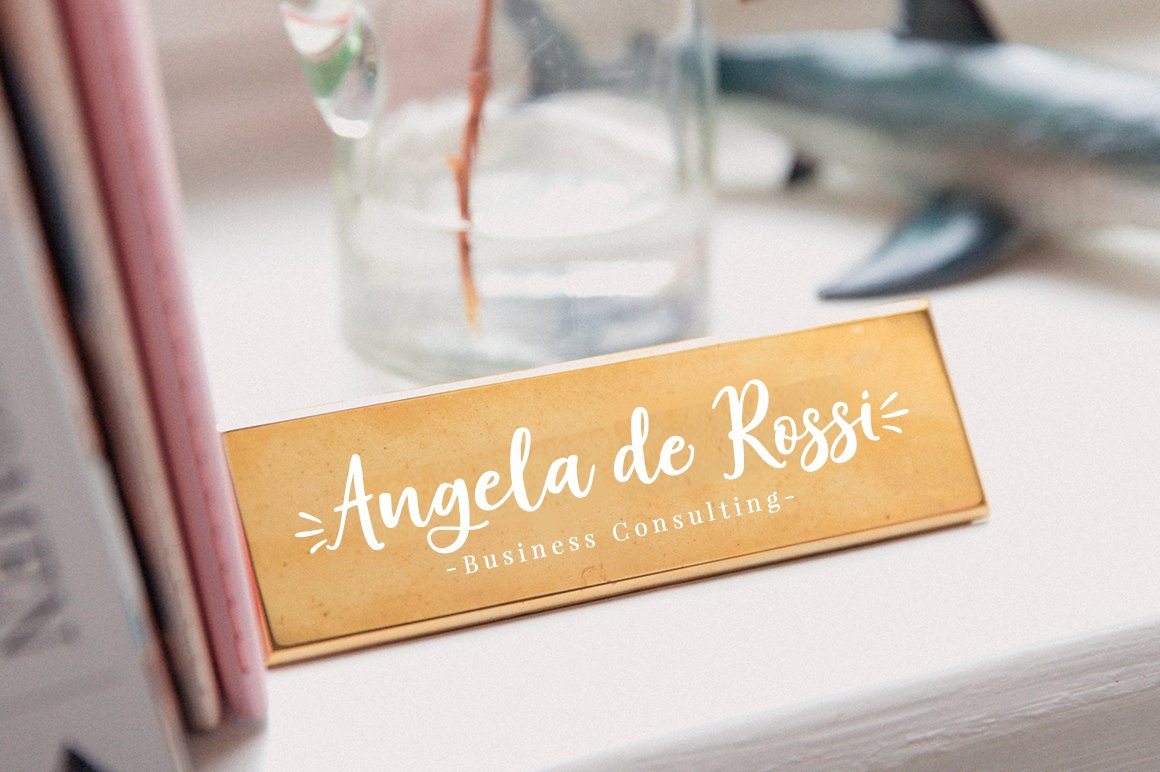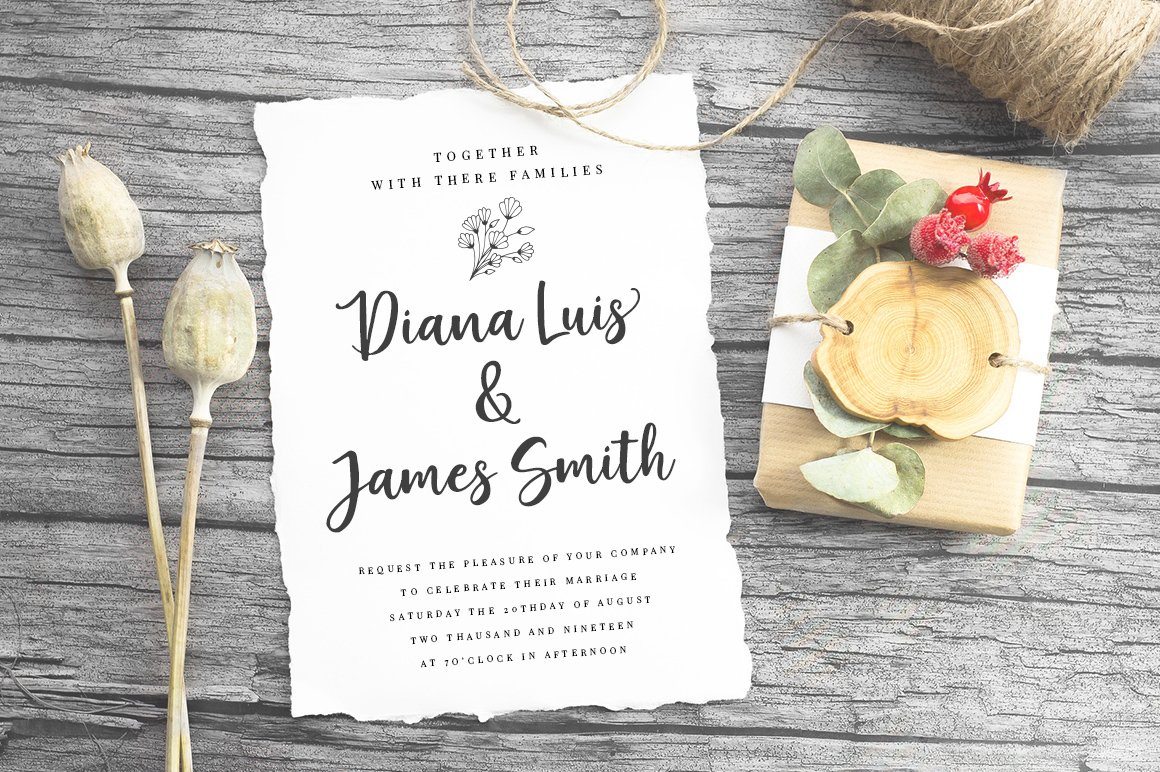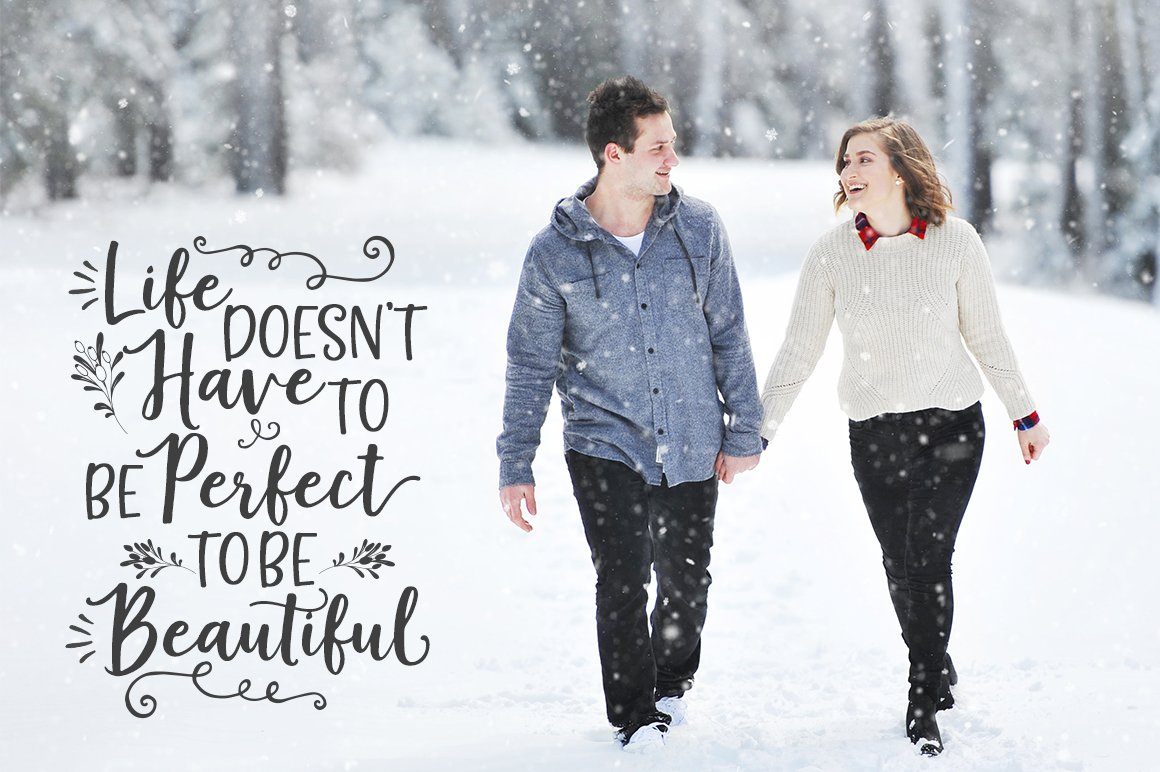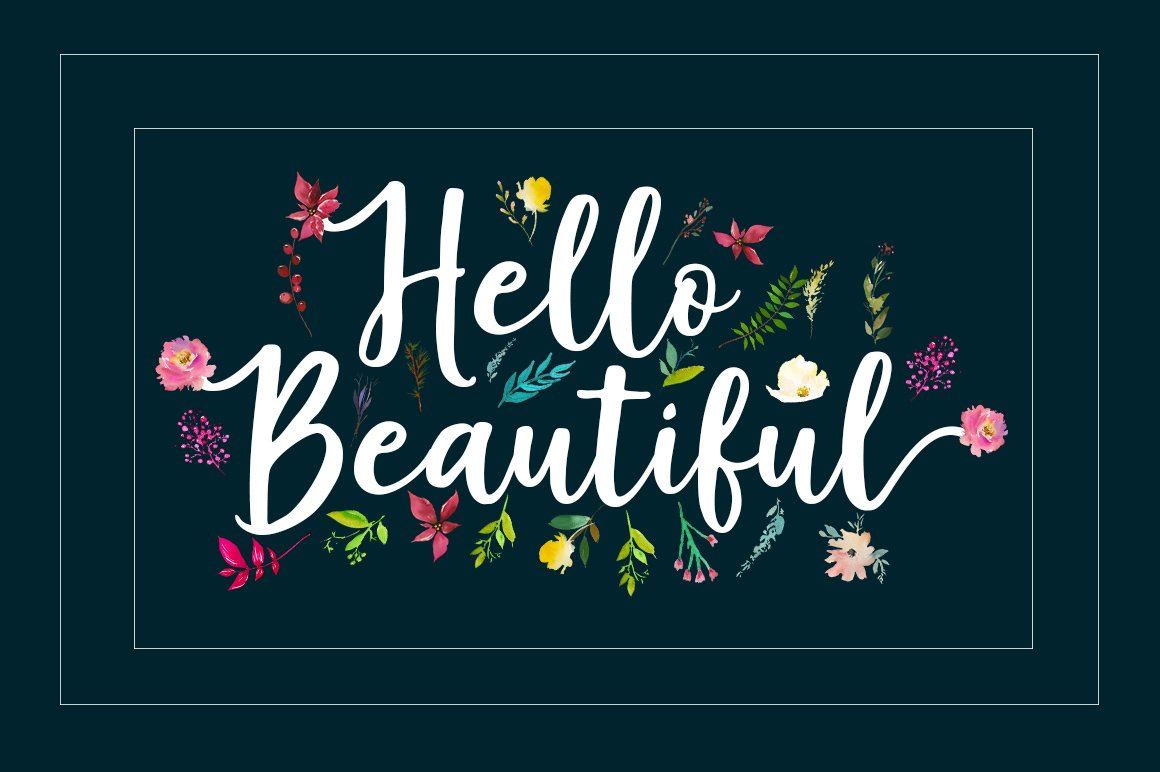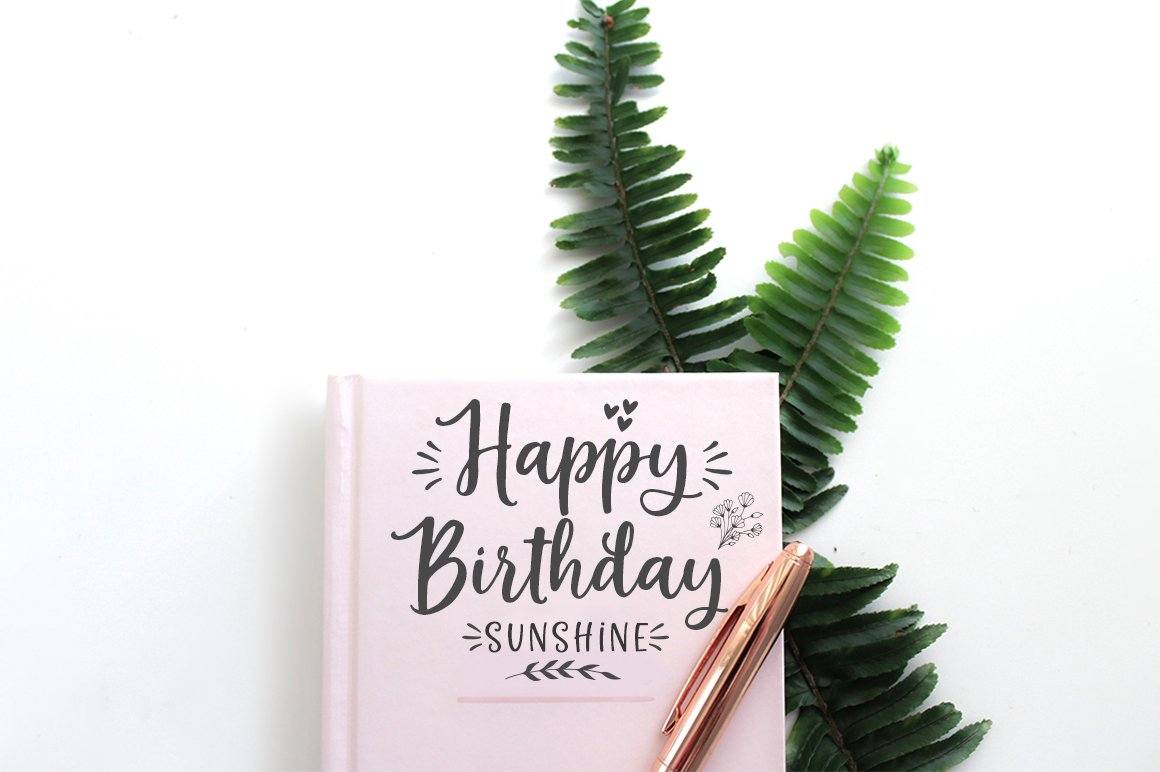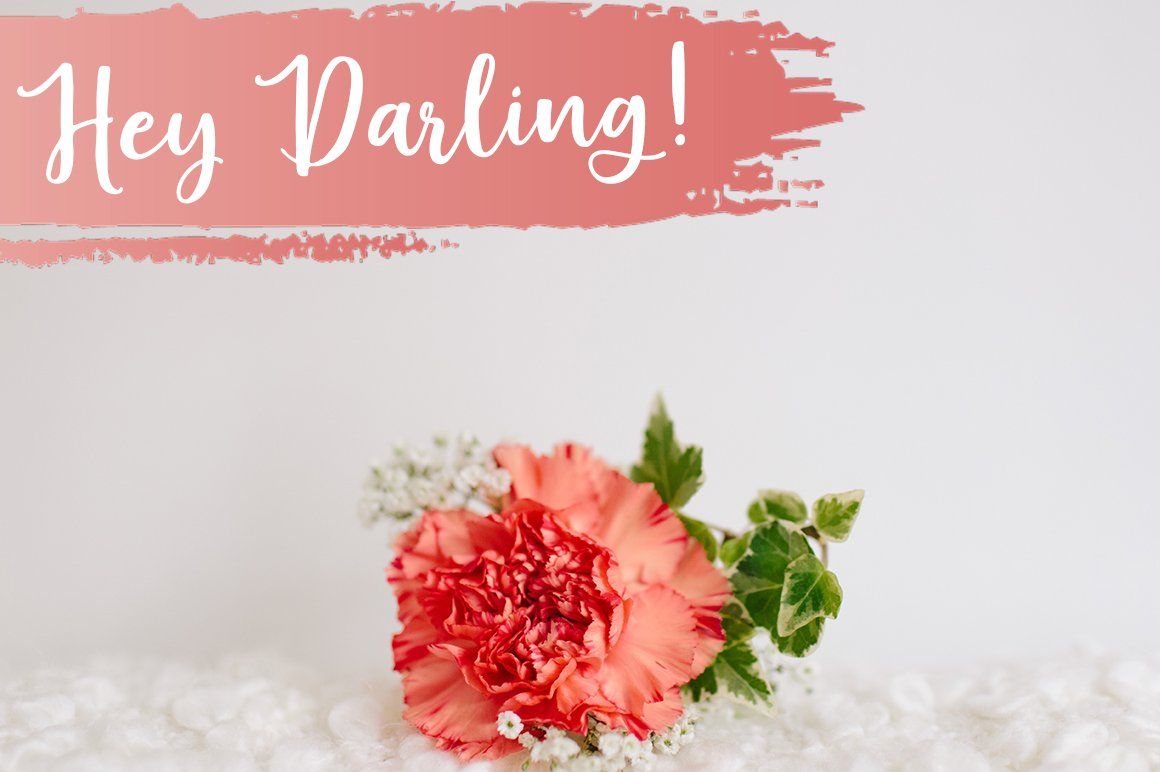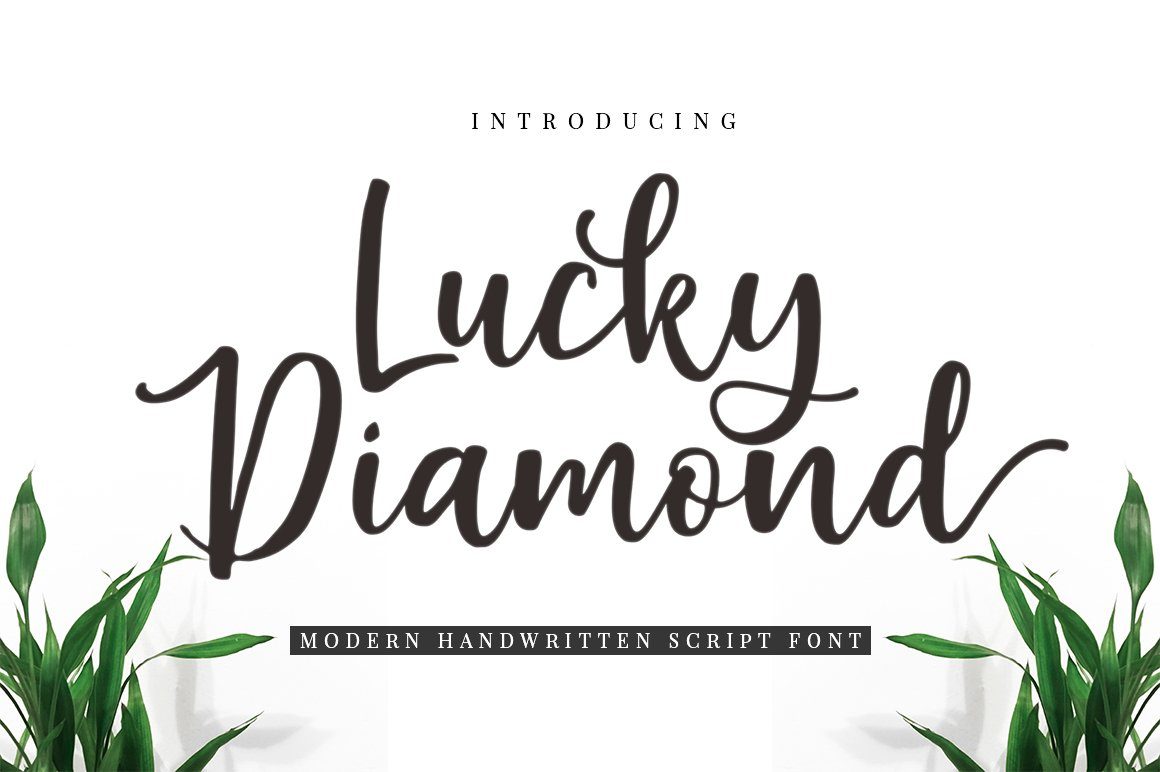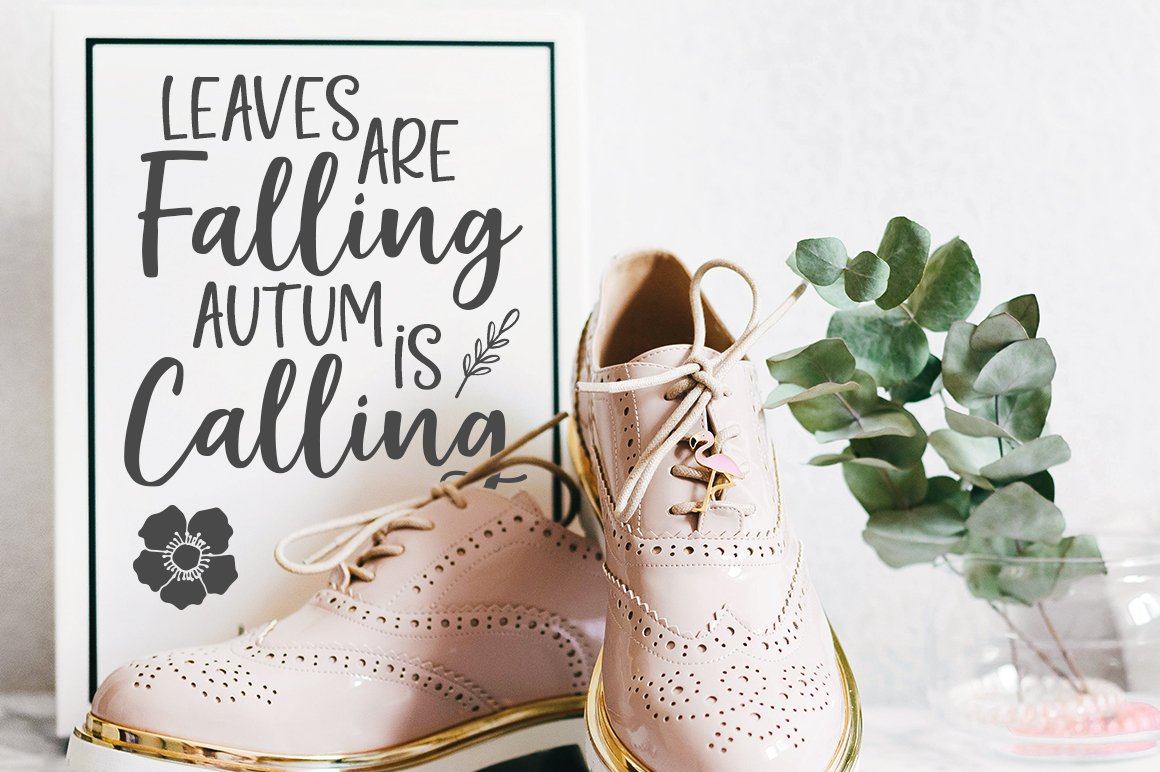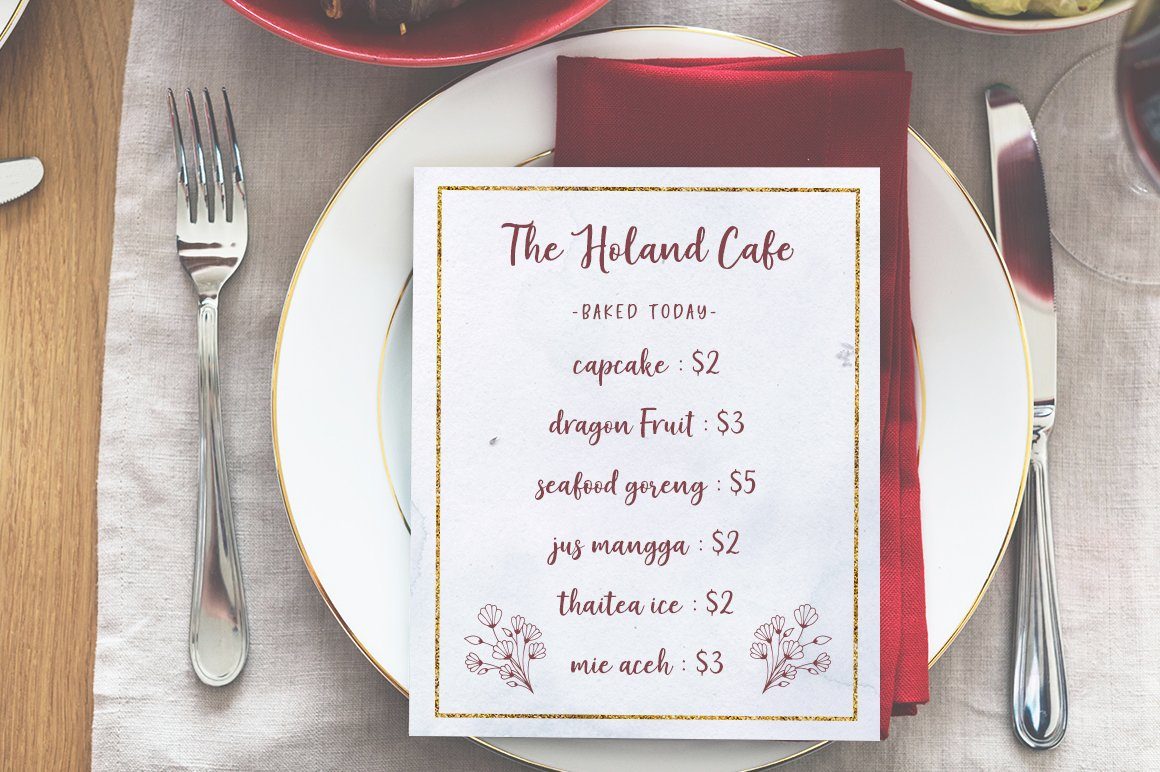
Lucky Diamond Script
About Lucky Diamond Script
Lucky Diamond Script is a modern script with handwriting, decorative characters, and dancing baselines! very suitable in use Like blog header, branding, t-shirt, wedding, social media, product design, stationery, advertising, clothing, book cover, business cards, greeting cards, branding, merchandise, invitations and handmade quotes and more. File include: -Lucky Diamond Script .otf -Lucky Diamond Script .ttf Lucky Diamond Script features OpenType stylistic alternates, ligatures and International support for most Western Languages is included. To enable the OpenType Stylistic alternates, you need a program that supports OpenType features such as Adobe Illustrator CS, Adobe Indesign & CorelDraw X6-X7, Microsoft Word 2010 or later versions. How to access all alternative characters using Adobe Illustrator: https://www.youtube.com/watch?v=XzwjMkbB-wQ Lucky Diamond Script is coded with PUA Unicode, which allows full access to all the extra characters without having special designing software. Mac users can use Font Book , and Windows users can use Character Map to view and copy any of the extra characters to paste into your favourite text editor/app. How to access all alternative characters, using Windows Character Map with Photoshop: https://www.youtube.com/watch?v=Go9vacoYmBw If you have any question, don’t hesitate to contact me by email :  Thank you!